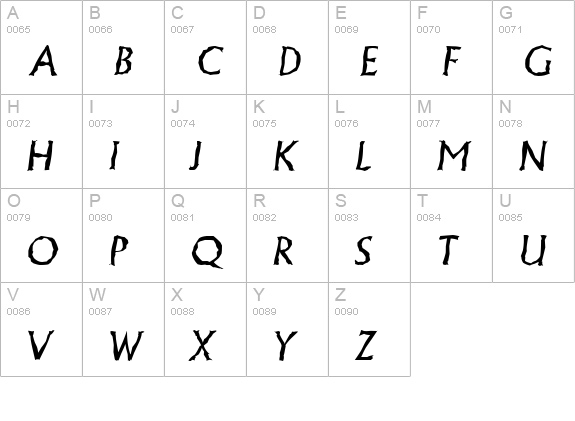
AdelonRandom-Italic is a distinctive, italic variant in the AdelonRandom typeface family \xE2\x80\x94 well suited to design and typography projects.
AdelonRandom-Italic is a sophisticated and elegant font that exudes a sense of modernity and creativity. Its sleek and flowing design adds a touch of sophistication to any project, making it perfect for branding, logos, invitations, and more. The italic style of AdelonRandom-Italic adds a dynamic and stylish flair to your text, making it stand out from the crowd. What's even better is that AdelonRandom-Italic is available for free download at FontsMarket.com. This means you can easily access this stunning font and incorporate it into your designs without any cost. Don't miss out on the opportunity to elevate your projects with AdelonRandom-Italic - download it today and unleash your creativity!